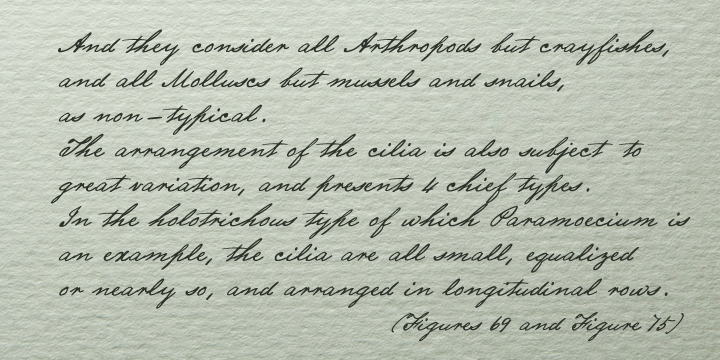
Dausby Font is perfect for creative design applications including artistic brand identity, craft workshop signage, handmade product packaging, boutique business cards, artisan marketplace branding, creative studio portfolios, personalized stationery design, and unique advertising campaigns that require typography with distinctive character and authentic handcrafted appeal.
What makes Dausby Font exciting is its charming blend of artistic expression and approachable personality that captures the essence of genuine creativity and individual craftsmanship. This delightful typeface features organic letterforms with subtle irregularities that mimic natural hand-lettering, creating an intimate connection between brand and audience. The font's authentic character and creative spirit make it ideal for brands seeking to communicate originality, artistic integrity, and personal touch in their visual communications.
Dausby Font family includes various stylistic options and decorative elements that enhance its handcrafted aesthetic appeal. The family typically features regular and bold weights, along with contextual alternates, artistic ligatures, and special character variations that provide designers with creative flexibility to achieve natural, expressive typography solutions.
Creative professionals consistently choose Dausby Font Free Download for projects requiring typography that embodies artistic authenticity and individual expression. This versatile typeface brings warmth and personality to brand communications by adding genuine creative character and emotional resonance to any design project. The font's carefully crafted imperfections create visual interest while maintaining excellent readability across various media applications. Design agencies worldwide use this distinctive typeface to communicate brand values of creativity, authenticity, and artistic excellence. Transform your creative brand identity with Dausby Font and develop memorable visual experiences that connect with audiences who appreciate genuine artistic expression and handcrafted quality in contemporary design.